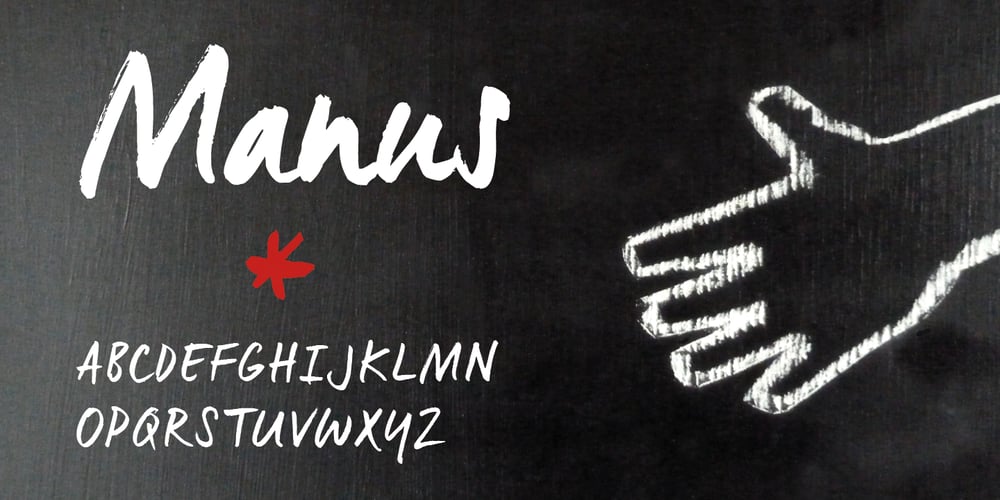
Manus
Manus font
Manus Font Family was designed by Geert Dijkers and published by JOEBOB graphics. Manus contains 1 styles and family package options. Stop using Times new Roman in children’s books!BrunoBook is here to stay. A complete character set with numbers and most (but not all) special signs.